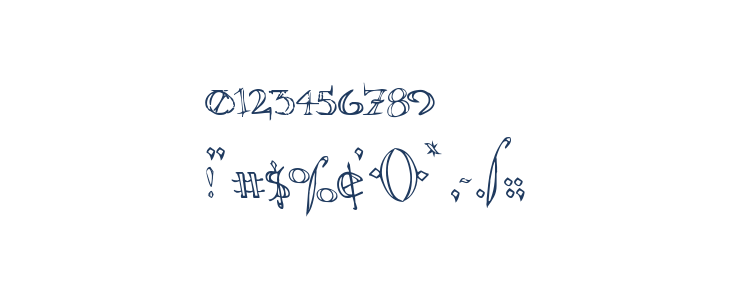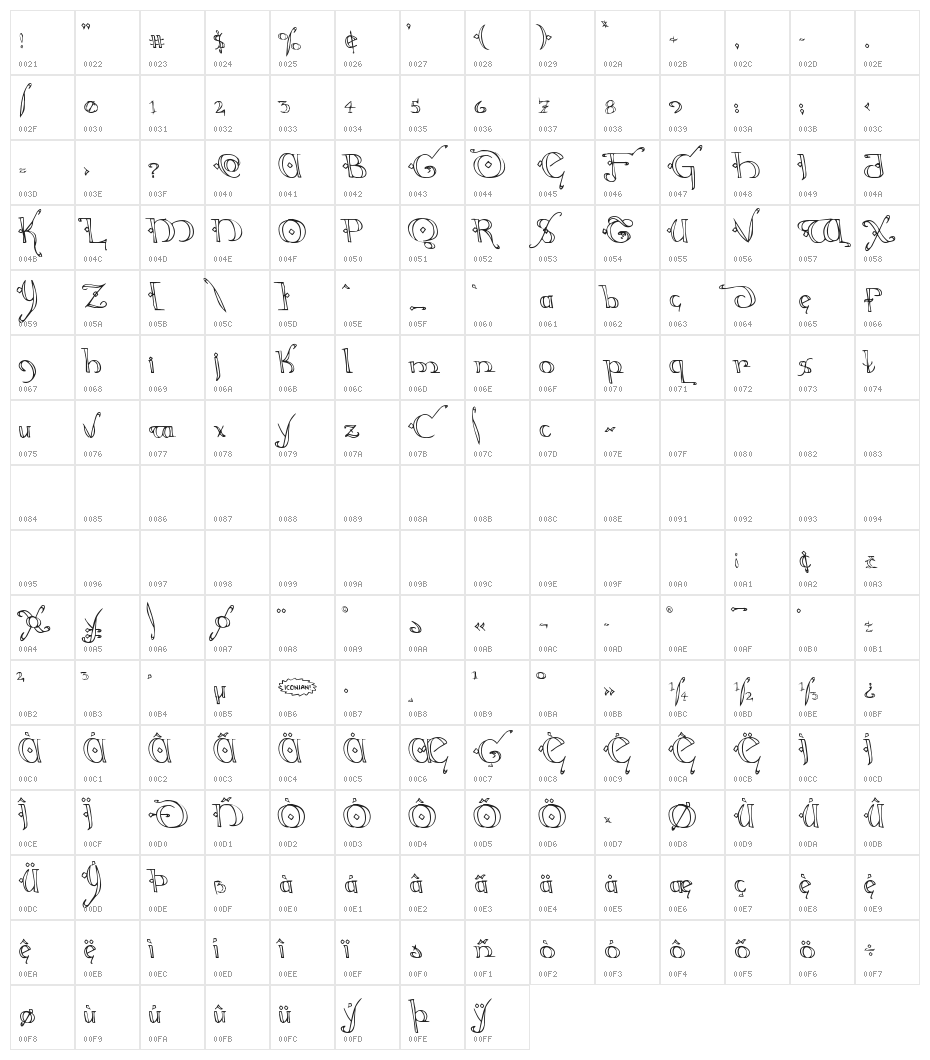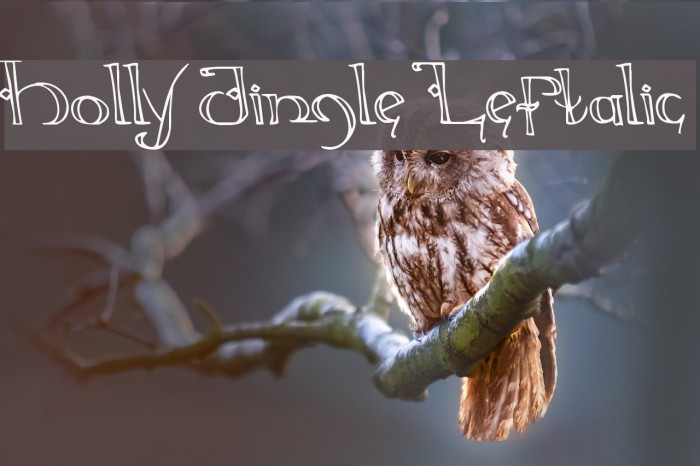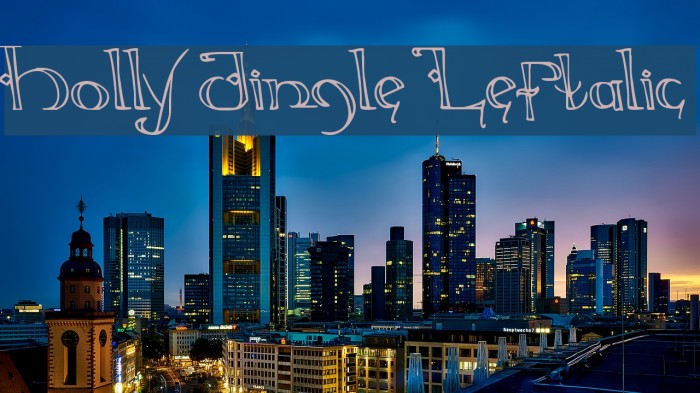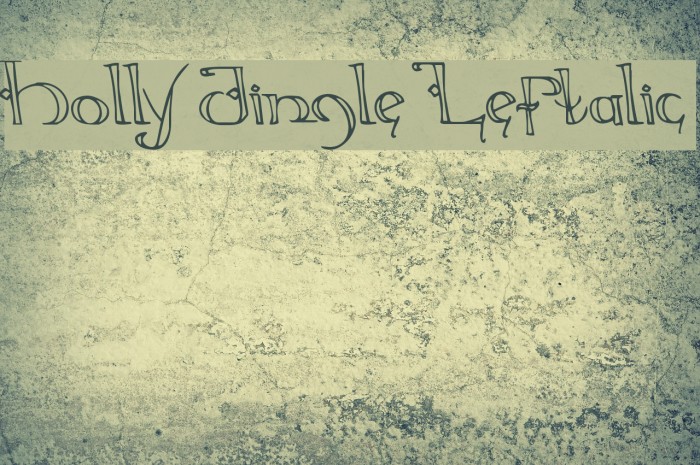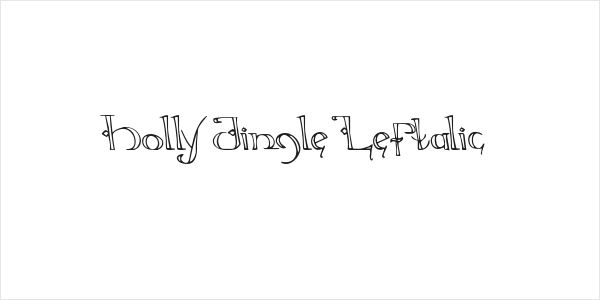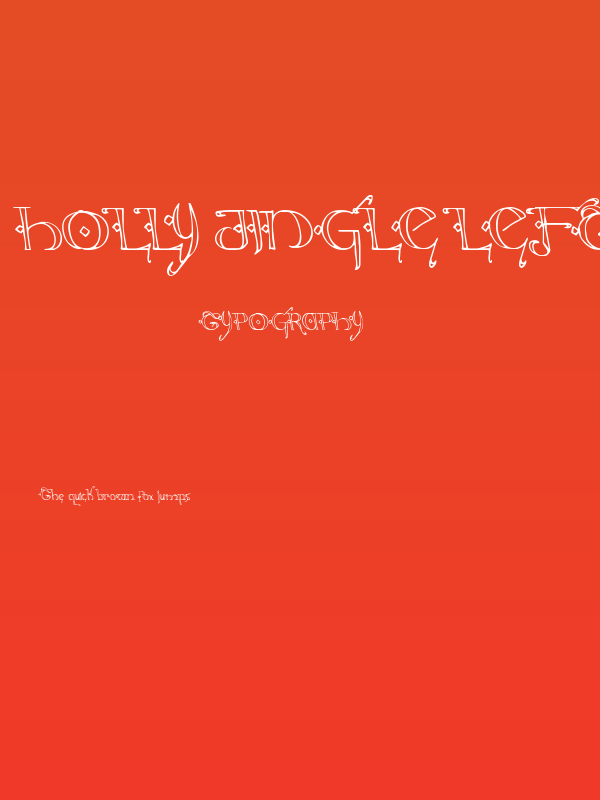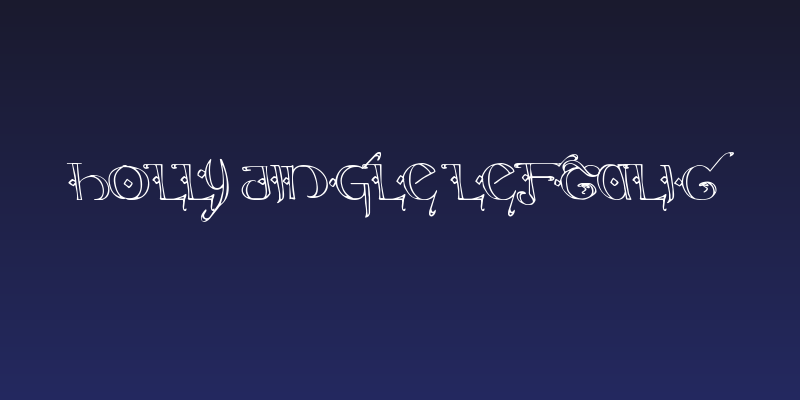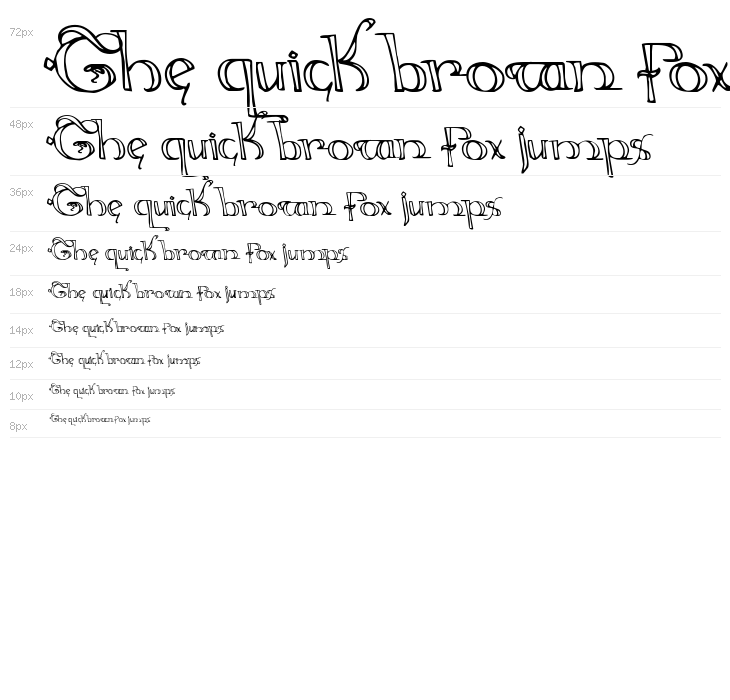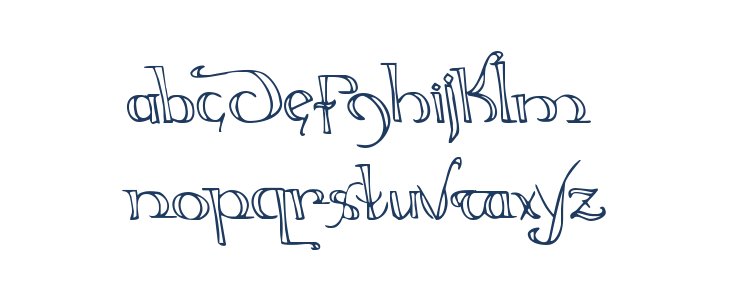
Holly Jingle Leftalic Font
Holly Jingle Leftalic Description
This font features a whimsical and decorative style, characterized by its playful and intricate design elements. Each letter is adorned with unique flourishes and embellishments, giving it a festive and ornamental appearance. The strokes are thin, with occasional loops and swirls that add to its charm. The overall look is reminiscent of holiday or celebratory themes, making it ideal for projects that require a touch of elegance and creativity. The characters are well-spaced, ensuring readability while maintaining their decorative appeal.
| Use Case | Headlines, Logos, Decorative text |
| Proposed Projects | Ideal for holiday cards, festive invitations, decorative posters, and creative branding projects. |